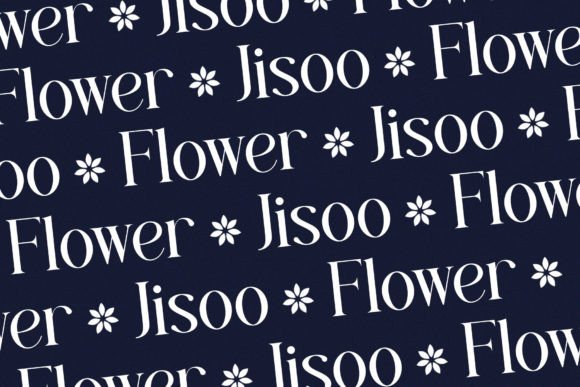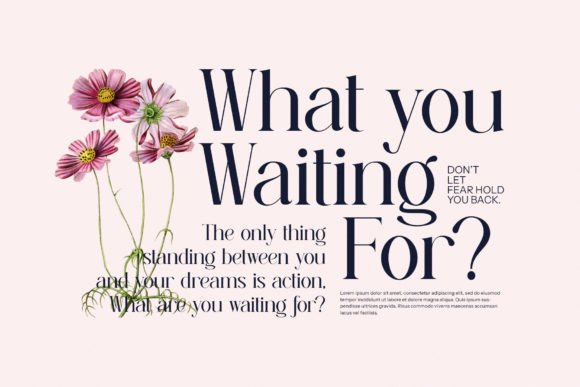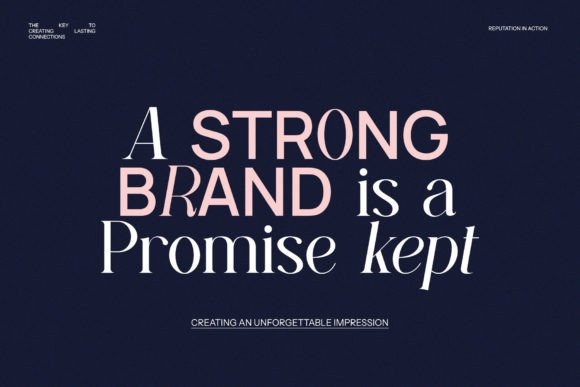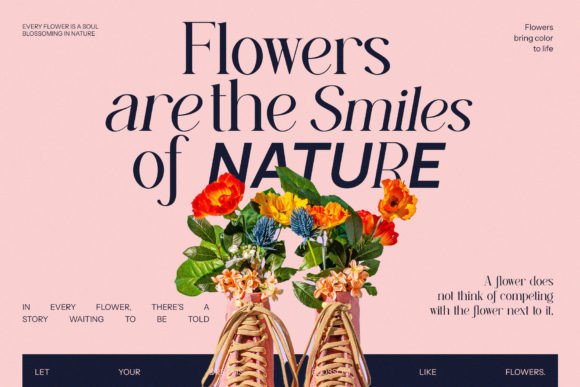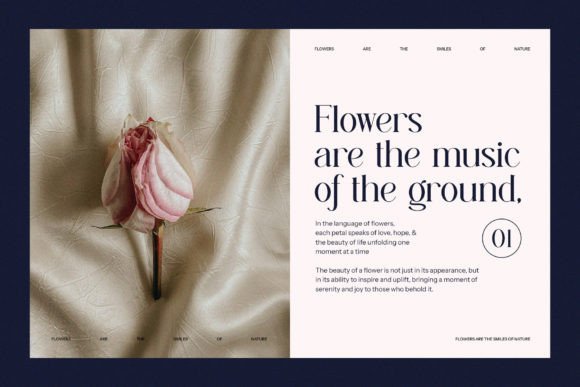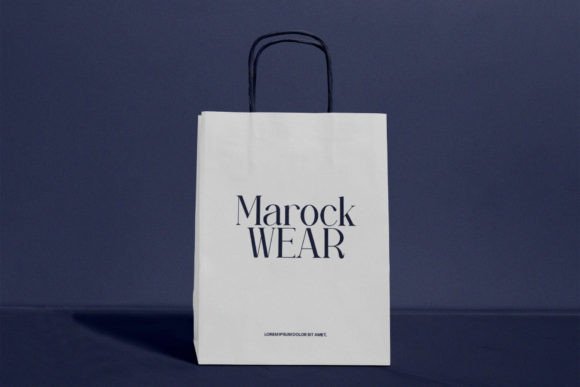
Introduction to Nogika Font
Nogika is a modern elegant serif typeface.
Great for creating impactful website headers, banners, and hero images Nogika’s modern serif design can add a sense of elegance and professionalism to digital content.